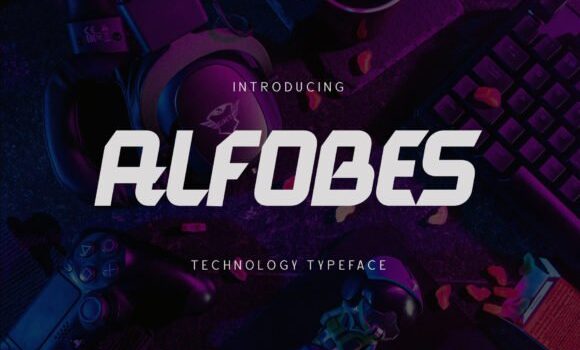
alfobes
Alfobes Font – Free Download Introduction to Alfobes Font Alfobes is a futuristic display font, inspired by space-like design concepts. 📸 Preview Gallery 6 images 📌 Product Name Alfobes Font 👤 Author Alit Design 📂 Category Explore ⬇️ Download Alfobes